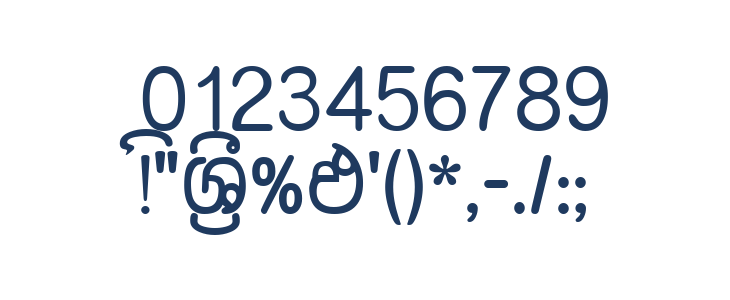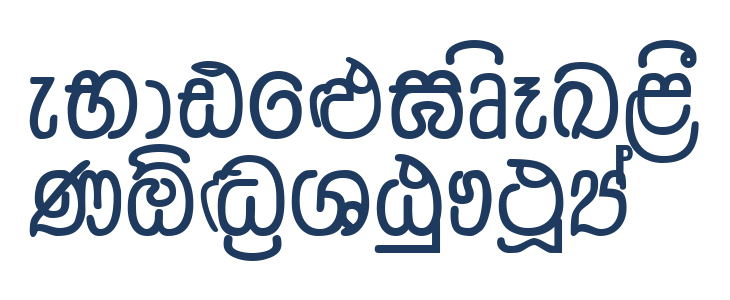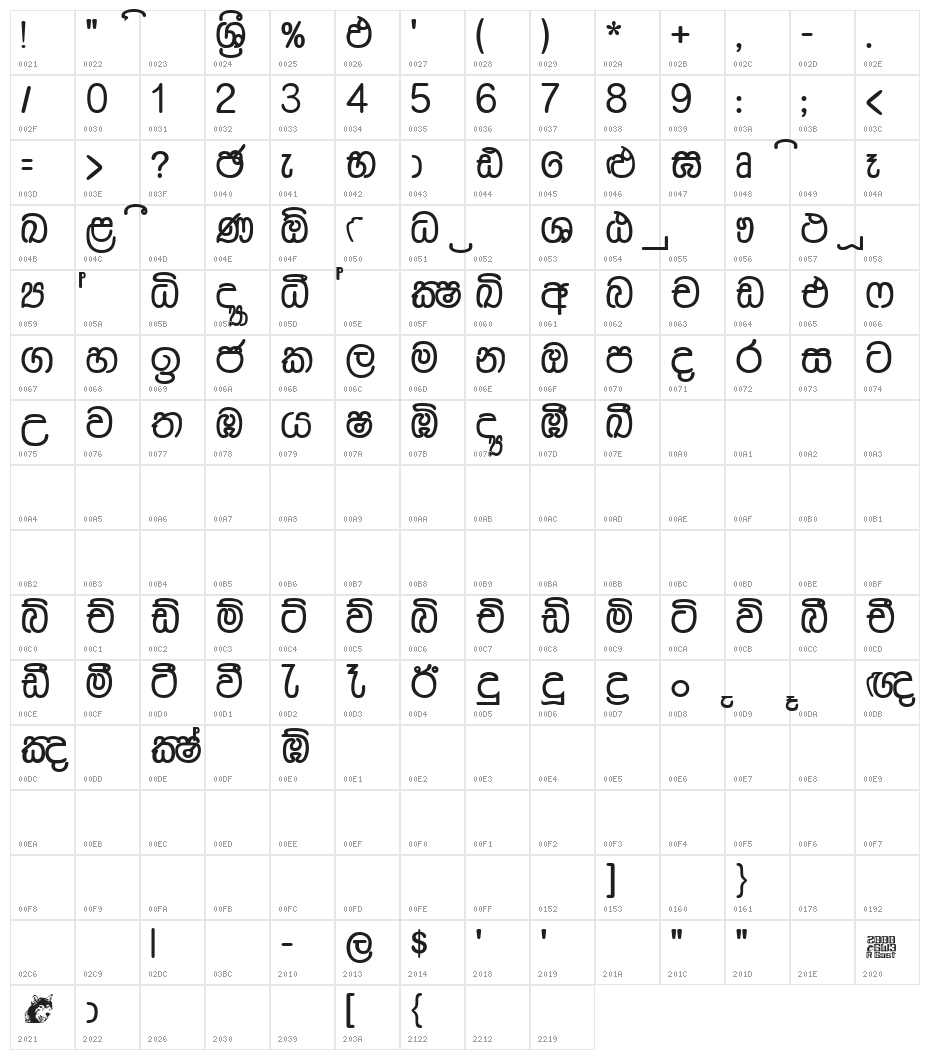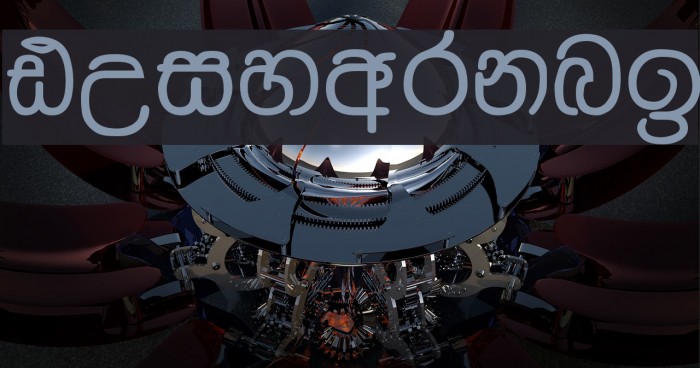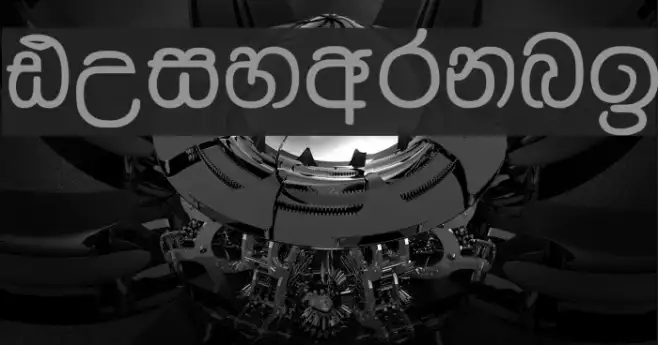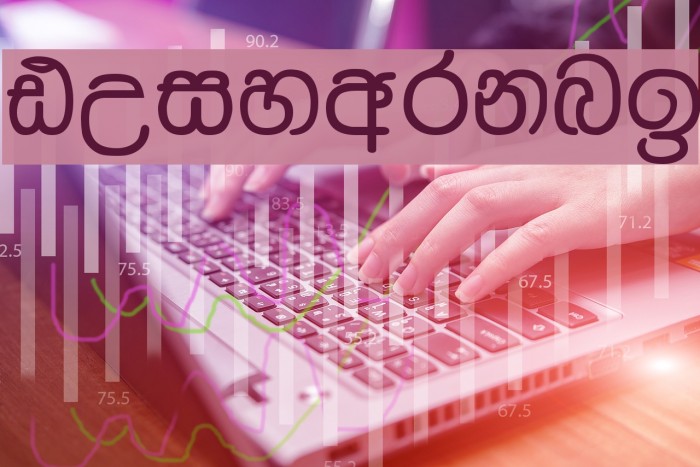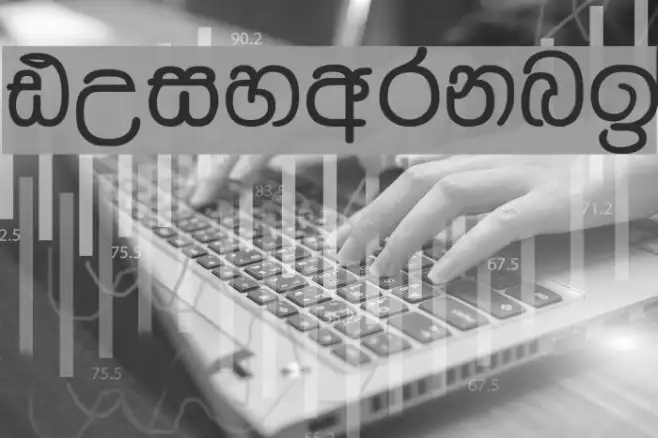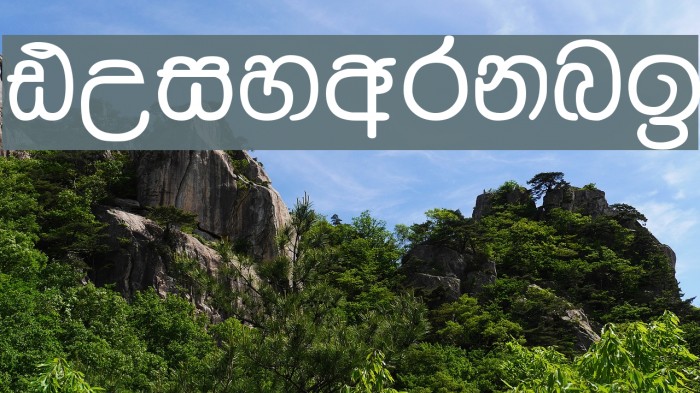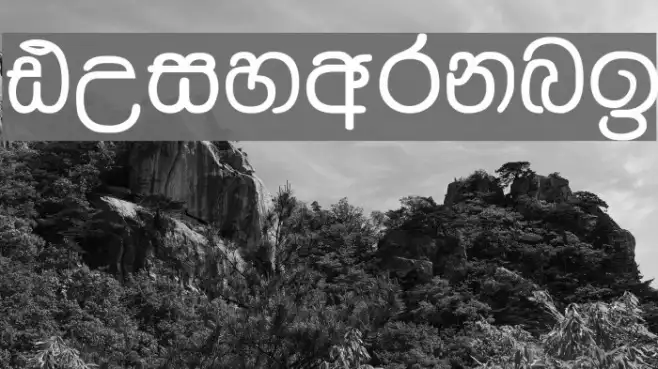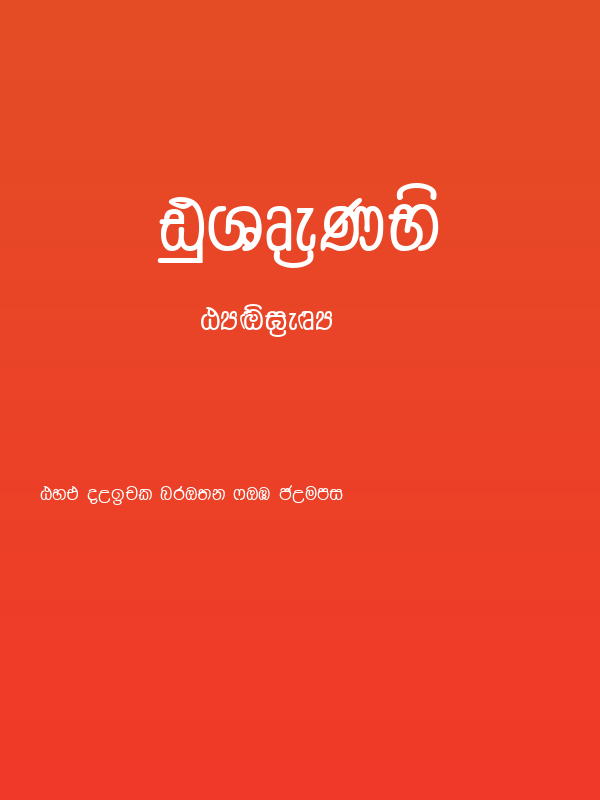
Dusharnbi Font
Dusharnbi Description
This font features a unique and artistic design, characterized by its flowing curves and intricate details. The characters exhibit a harmonious blend of traditional and modern elements, making it visually appealing and versatile. The font's structure is well-balanced, with consistent stroke widths and smooth transitions between lines. It maintains a sense of elegance and sophistication, suitable for a variety of design applications. The numerals are clear and distinct, complementing the overall style of the font. Special characters are thoughtfully integrated, enhancing the font's usability across different contexts.
| Proposed Projects | Ideal for branding, invitations, artistic projects, and decorative purposes. |